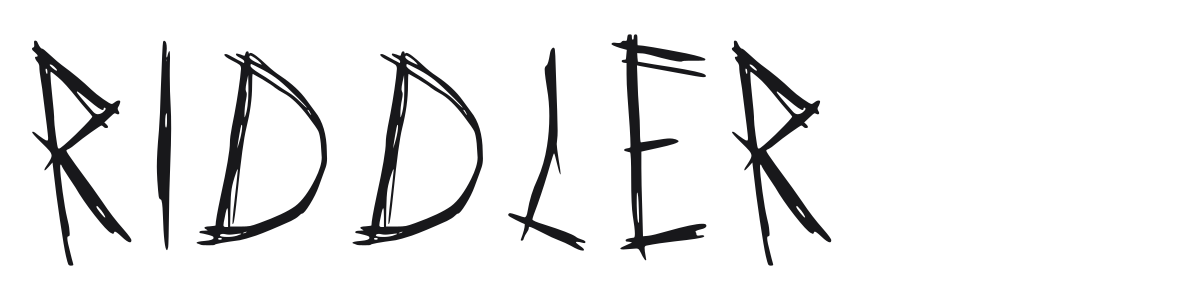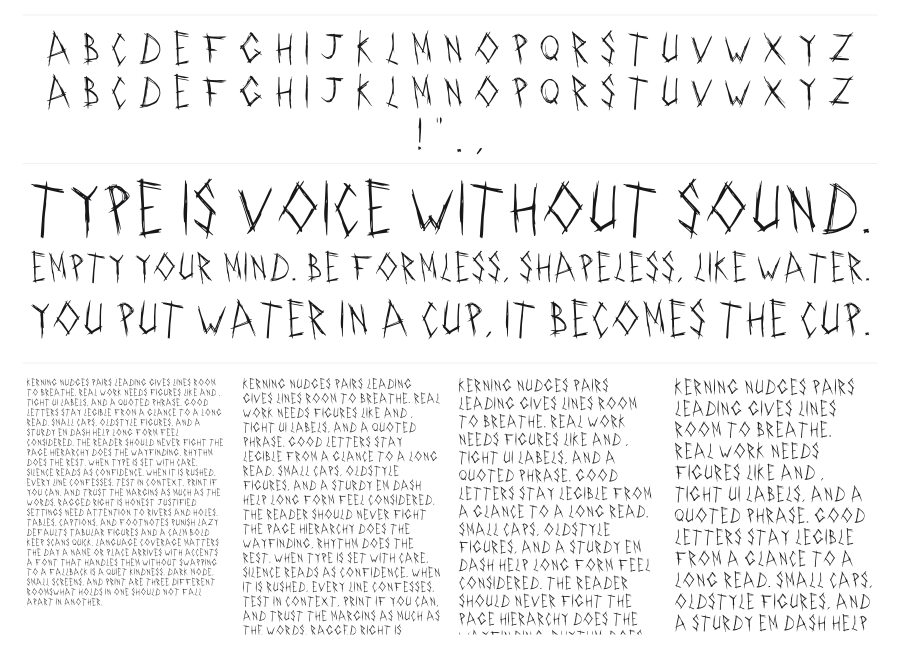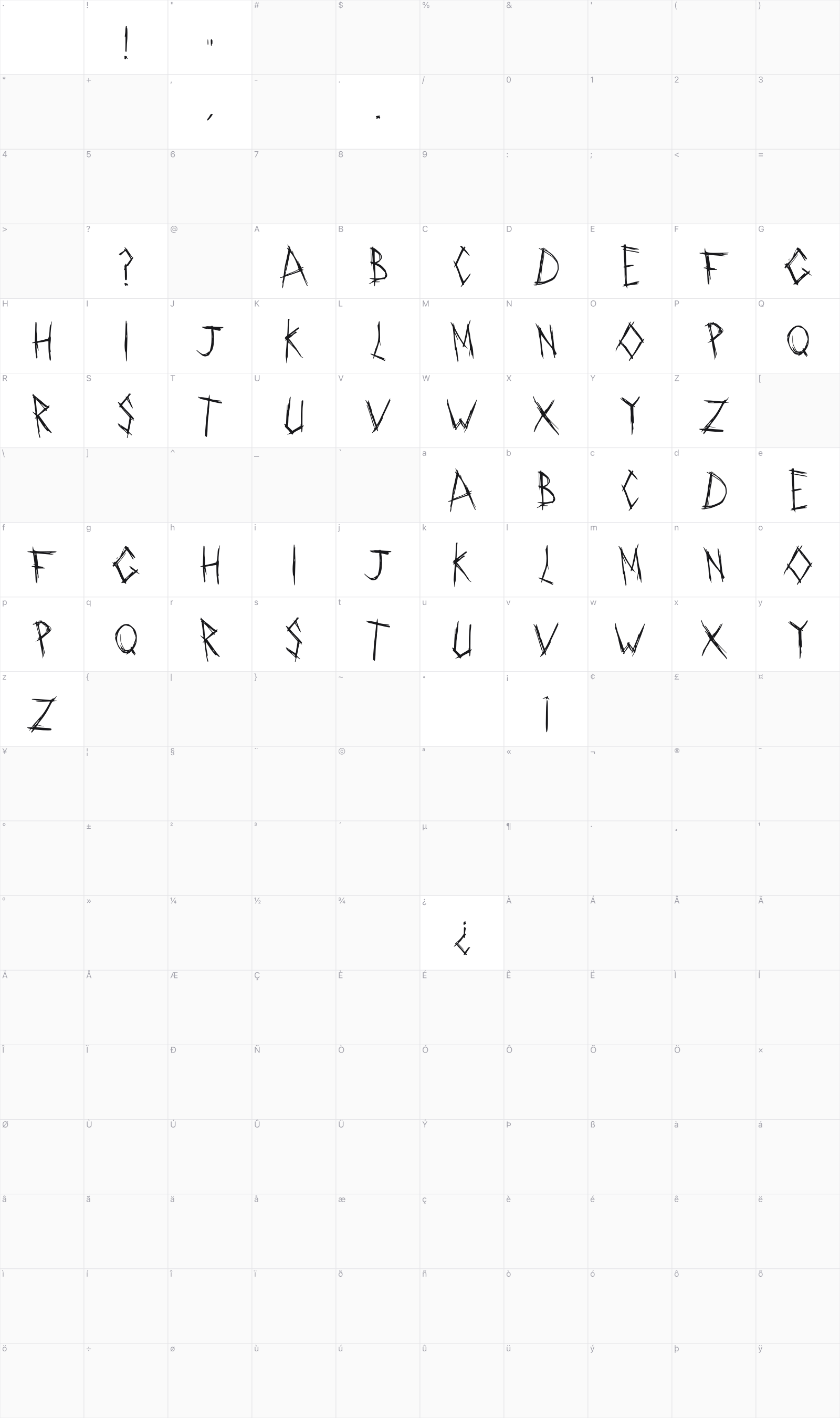
Riddler
by Jesus Trejo
Riddler is a scratchy, distressed display font inspired by the Batman villain's 2022 cinematic incarnation. Each character looks like it was carved or scraped with a sharp edge, with fragmented strokes and irregular serifs that project menace and instability. Designed for titles, posters, and villain-coded branding.